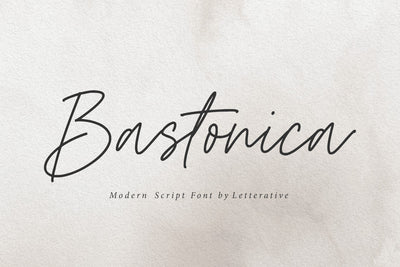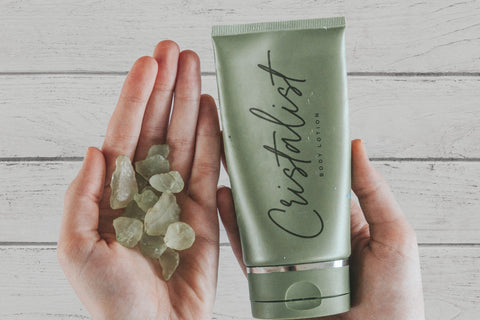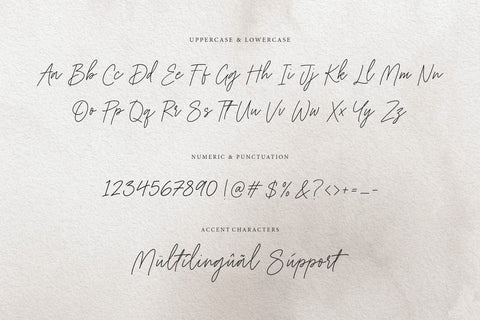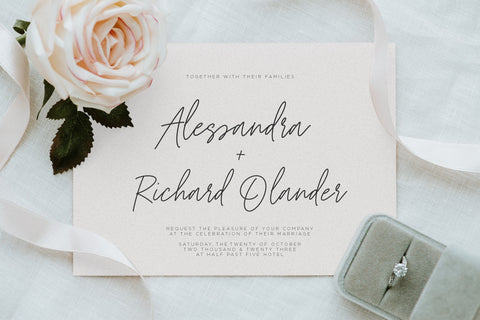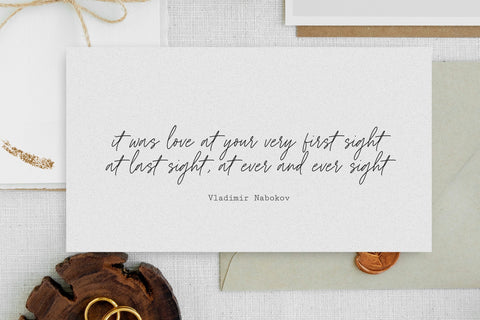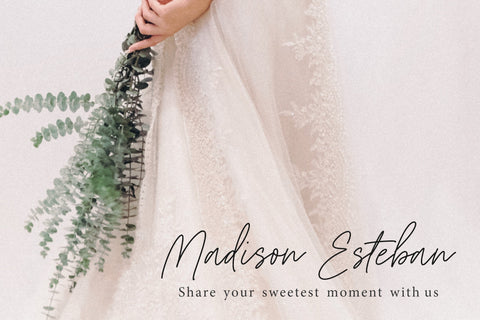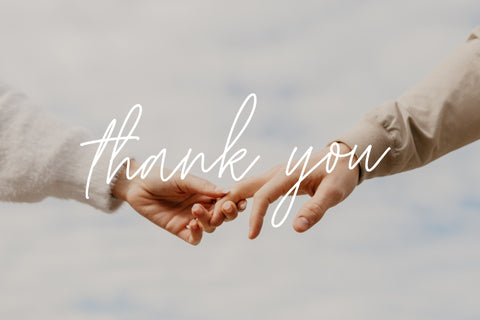
Bastonica Modern Script Font
Introducing by Letterative Studio : Bastonica Font
Bastonica is a Modern Script Font
Bastonica is a modern, monoline handwritten script font. Whether you’re using it for crafts, digital design, presentations, or making greeting cards, this font has the potential to become your favorite go-to font, no matter the occasion!
Rockfire also multilingual support